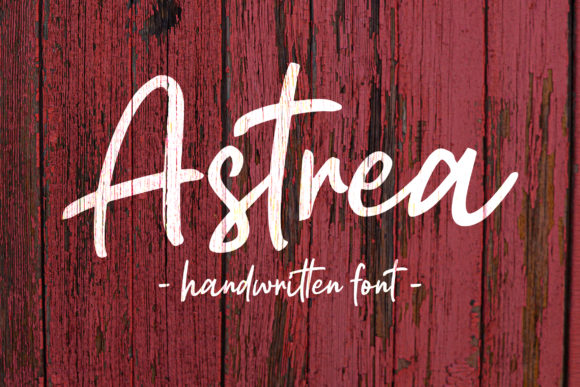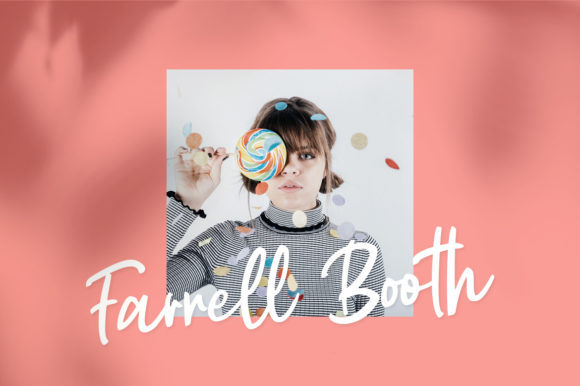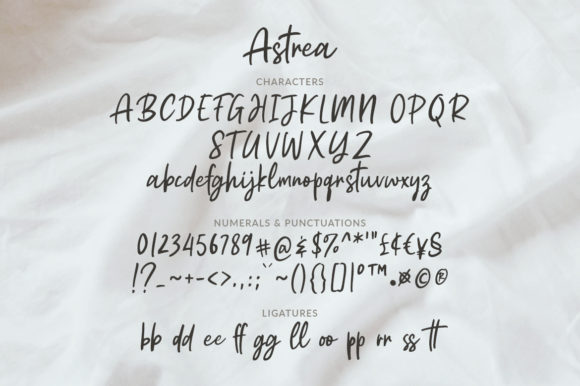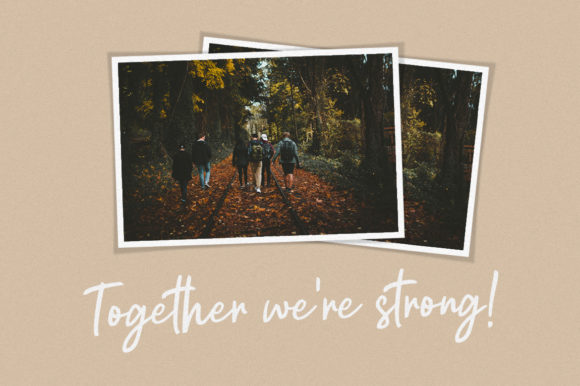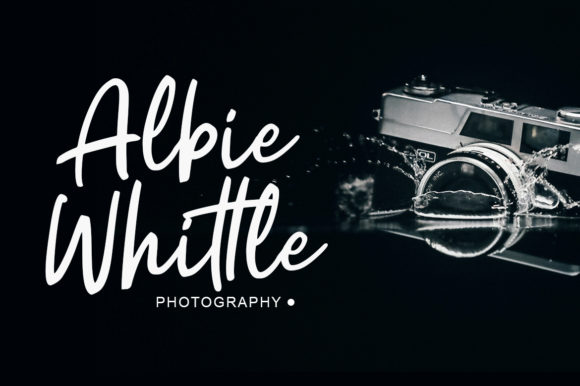
Astrea Font
About Astrea Font
Astrea is a cute and casual handwritten font with an incredibly friendly feel. Whether you’re looking for fonts for Instagram or calligraphy scripts for DIY projects, this font will turn any creative idea into a true piece of art!